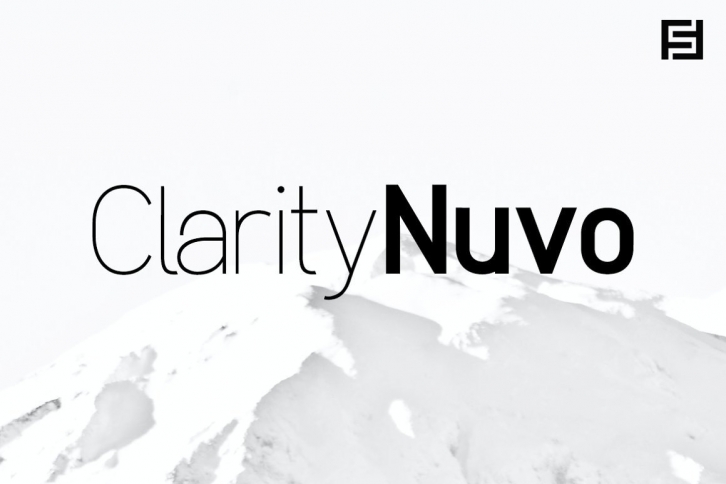
Clarity Nuvo is a modern and clean sans-serif font with a touch of modernism and simplicity added to the design. It will definitely make all of your lovely creations come alive and stand out!